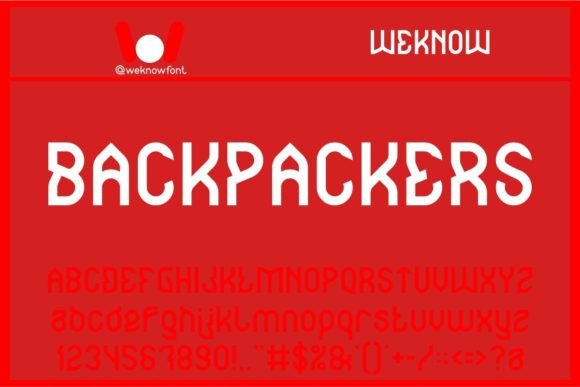
Introducing Backpackers Font: The Ultimate Techno-Sci-Fi Display Font
Are you a designer or crafter looking for a font that can elevate your creative projects to the next level? Look no further than Backpackers Font, a techno-sci-fi display font that is perfect for a wide range of applications. In this article, we’ll take a closer look at the features and benefits of Backpackers Font, and explore how it can be used to enhance your logo, branding, and design projects.
What is Backpackers Font?
Backpackers Font is a modern, techno-sci-fi display font that is designed to make a statement. Its sleek, futuristic design makes it perfect for projects that require a bold, eye-catching look. The font features clean lines, sharp edges, and a futuristic aesthetic that is sure to grab attention.
Key Features of Backpackers Font
So, what makes Backpackers Font so special? Here are just a few of its key features:
• Techno-Sci-Fi Design: Backpackers Font features a futuristic, techno-sci-fi design that is perfect for projects that require a bold, otherworldly look.
• Display Font: Backpackers Font is a display font, designed to be used at larger sizes where its bold, futuristic design can really shine.
• Versatile: Backpackers Font is incredibly versatile, and can be used for a wide range of projects, from logos and branding to posters, music and movie titles, and more.
• Easy to Read: Despite its bold, futuristic design, Backpackers Font is surprisingly easy to read, making it perfect for headlines, titles, and other display text.
Use Cases for Backpackers Font
So, what kinds of projects is Backpackers Font best suited for? Here are just a few ideas:
• Logo and Branding: Backpackers Font is perfect for creating bold, eye-catching logos and branding materials that will help your business stand out.
• Posters and Flyers: The font’s bold, futuristic design makes it perfect for creating eye-catching posters and flyers that will grab attention.
• Music and Movie Titles: Backpackers Font is a great choice for music and movie titles, adding a touch of futuristic flair to your project.
• Apparel and Merchandise: The font’s bold design makes it perfect for use on apparel and merchandise, such as t-shirts, hats, and stickers.
• Web and Digital Design: Backpackers Font can also be used in web and digital design, adding a touch of futuristic flair to your website or social media graphics.
Benefits of Using Backpackers Font
So, why should you choose Backpackers Font for your next project? Here are just a few benefits of using this amazing font:
• Instant Recognition: The bold, futuristic design of Backpackers Font will help your project stand out and grab attention.
• Versatility: The font’s versatility means you can use it for a wide range of projects, from logos and branding to posters and merchandise.
• High-Quality Design: The font’s high-quality design ensures that it will look great in any project, from print to digital.
In conclusion, Backpackers Font is an amazing techno-sci-fi display font that is perfect for designers and crafters looking to add a touch of futuristic flair to their projects. Its bold, eye-catching design makes it perfect for a wide range of applications, from logos and branding to posters, music and movie titles, and more. With its versatility, ease of use, and high-quality design, Backpackers Font is a great choice for anyone looking to elevate their creative projects to the next level.